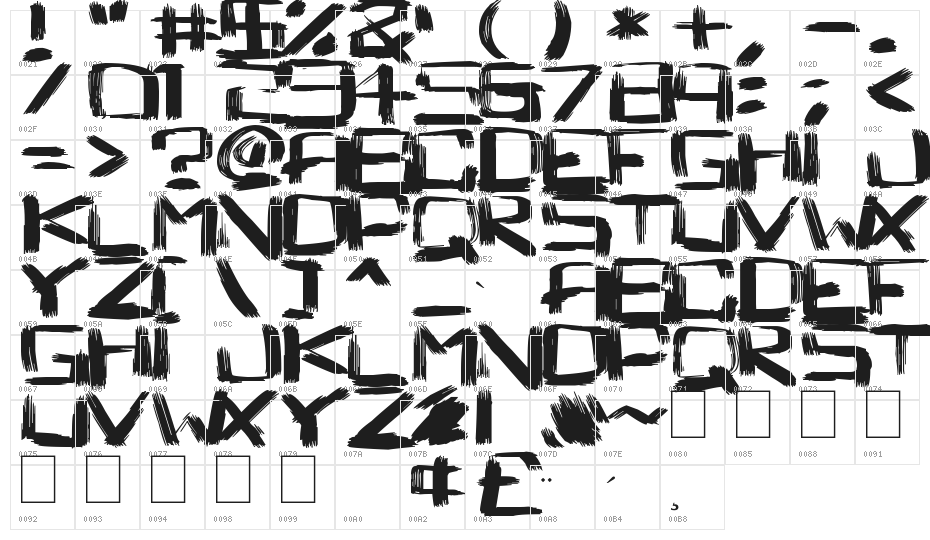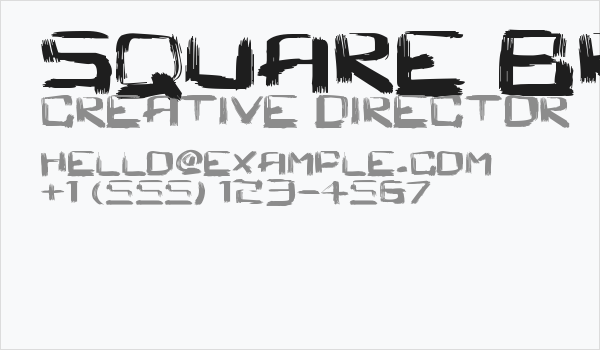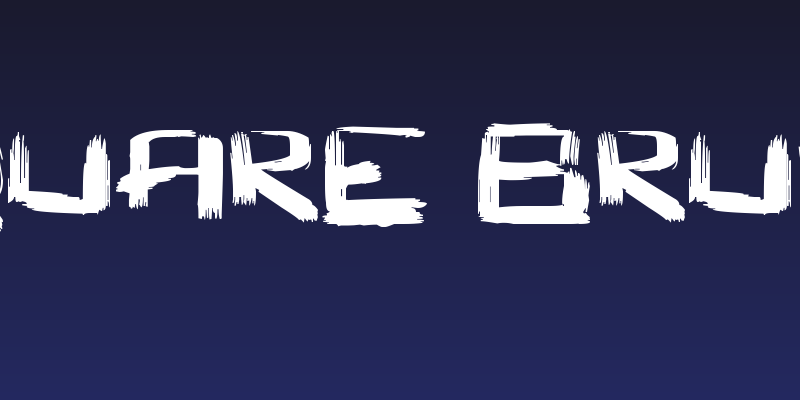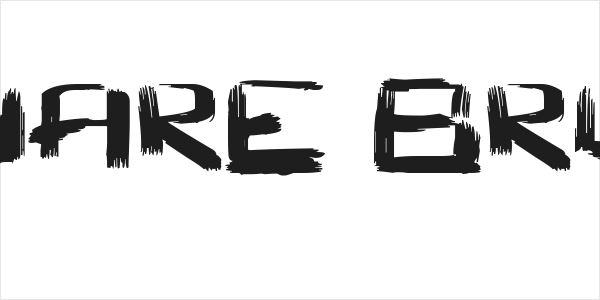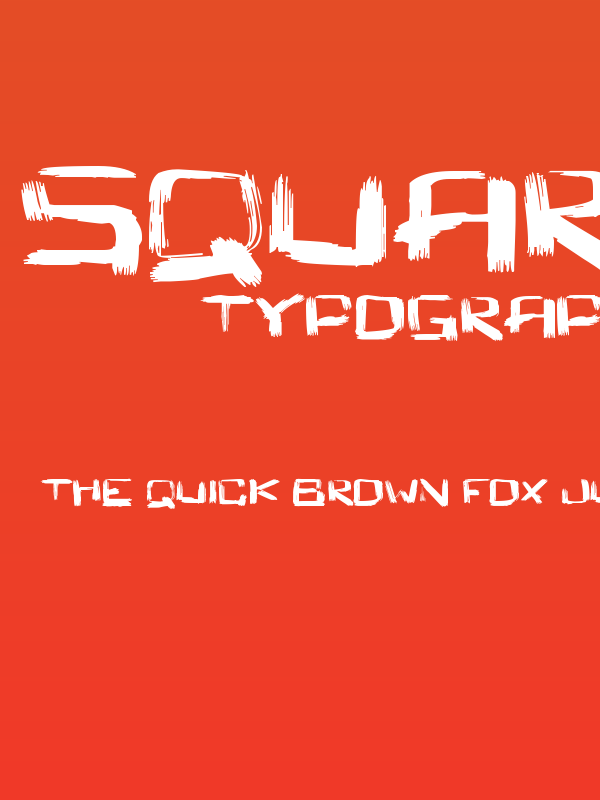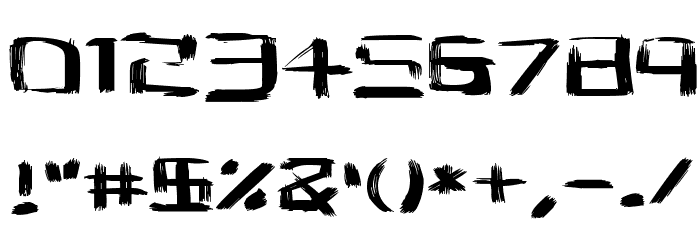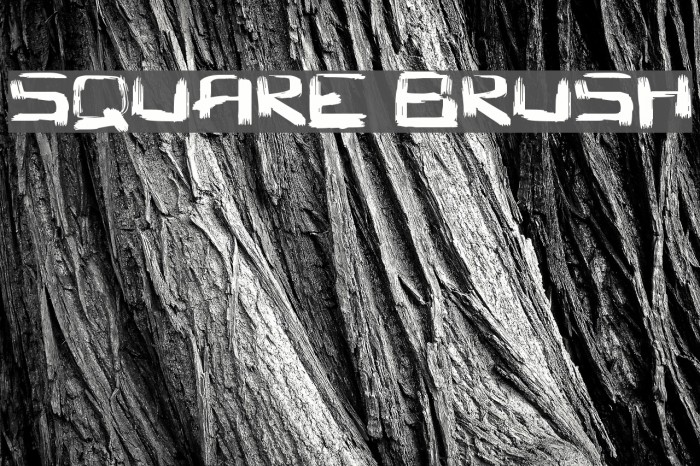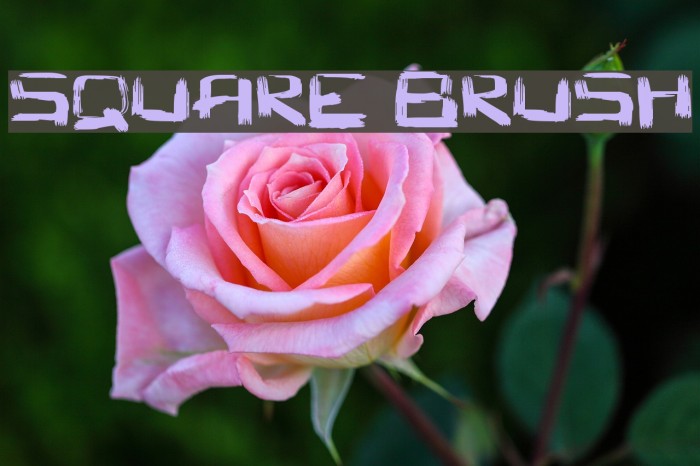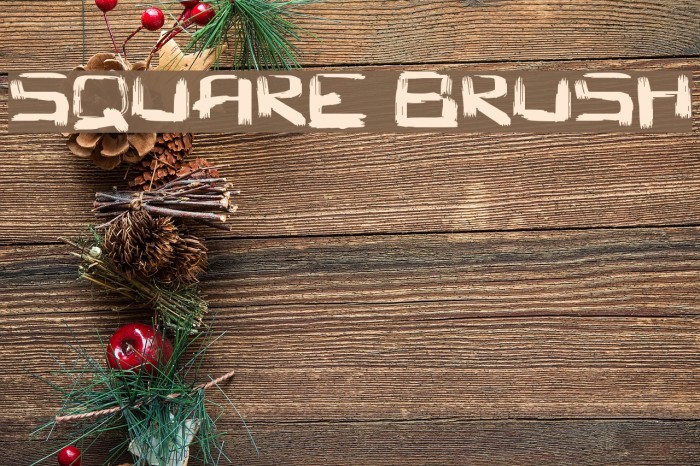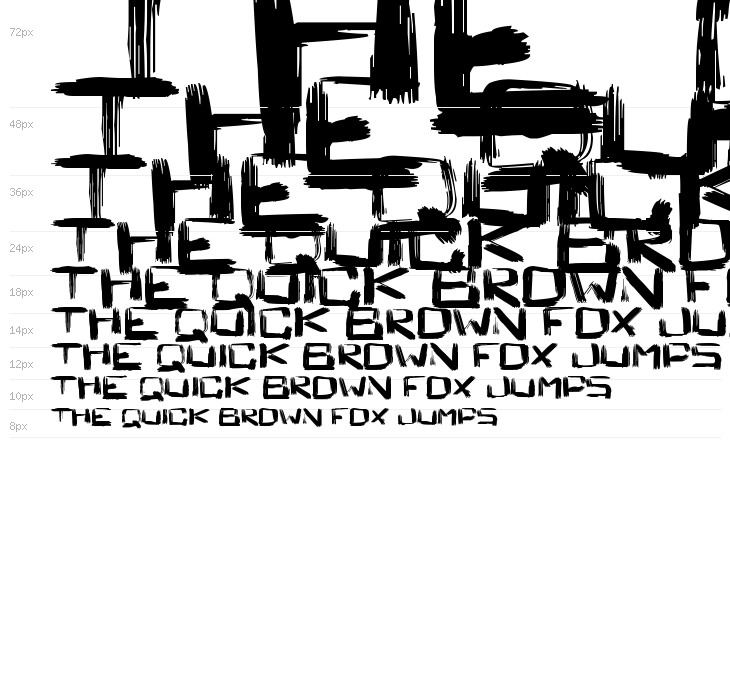
Square Brush Font
Square Brush Description
This font features a bold, brush-like appearance with a dynamic and energetic style. The strokes are uneven and textured, resembling the effect of a dry brush on paper. Each character has a unique, hand-crafted feel, with varying thicknesses that add a sense of movement and spontaneity. The uppercase and lowercase letters maintain a consistent style, while the numbers and special characters integrate seamlessly with the overall design. This font is ideal for projects that require a bold and artistic touch, capturing attention with its distinctive and expressive look.
| Use Case | Headlines, Logos, Artistic projects |
| Proposed Projects | Ideal for artistic posters, creative branding, album covers, and expressive headlines. |